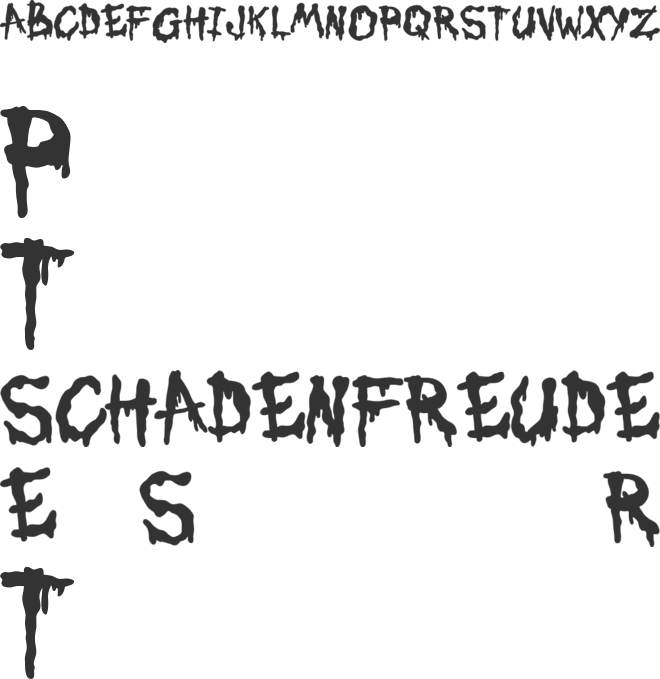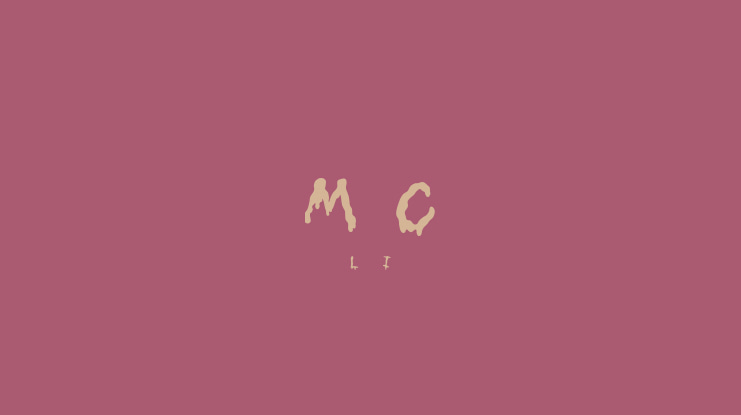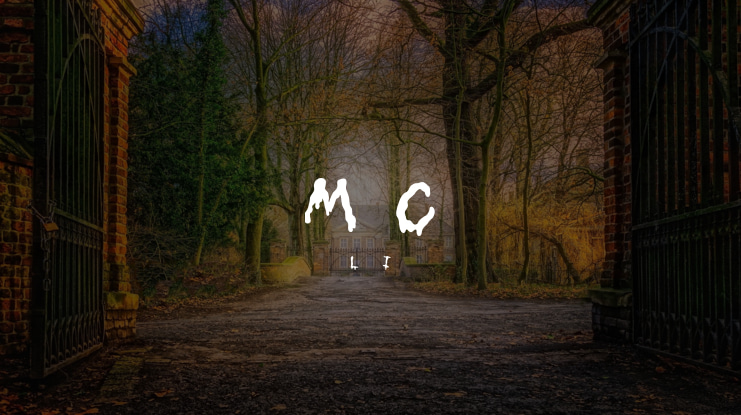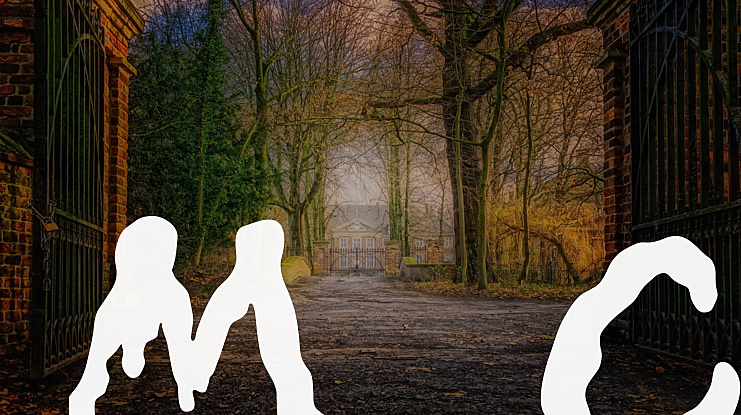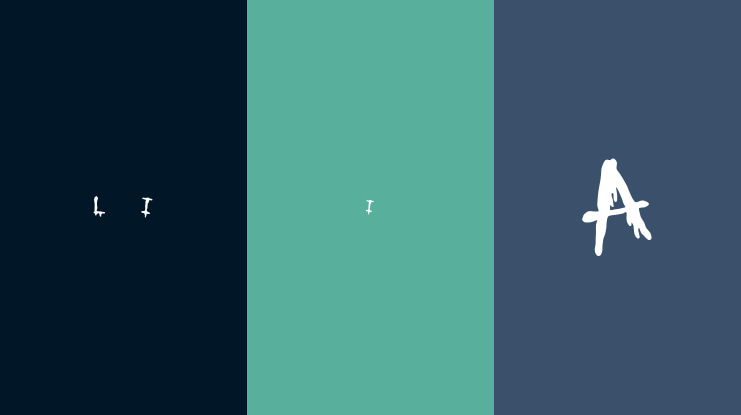
My Candy Font
MY CANDY is a horror display font with gore inspiration.
i hope this font perfect for creating banner event, flyer, youtube banner,
horror event, Halloween event and poster ETC.
This font just basic font A-Z type only